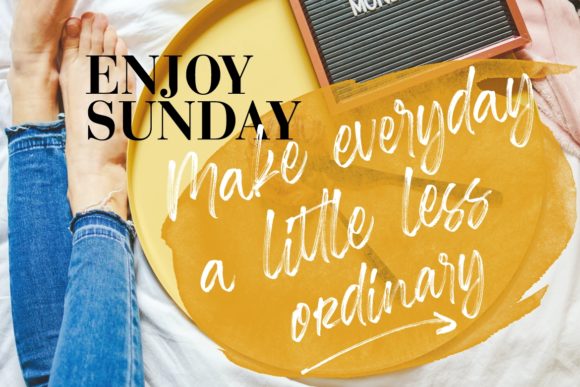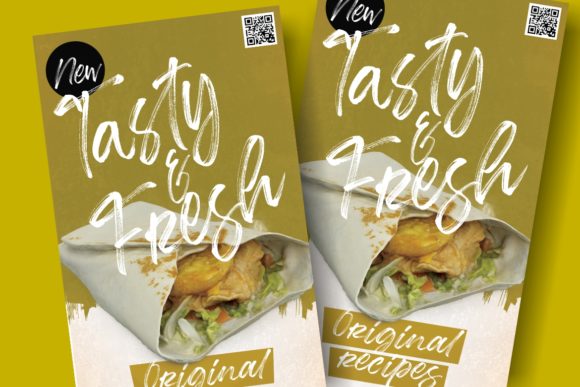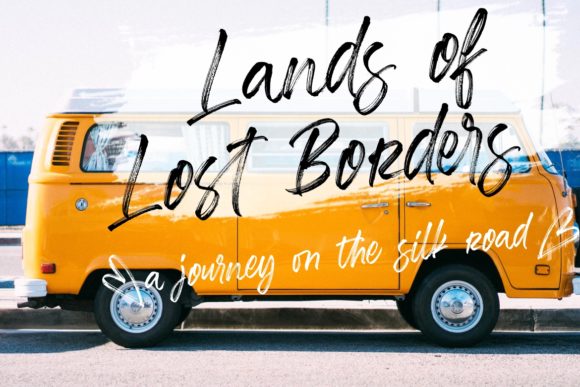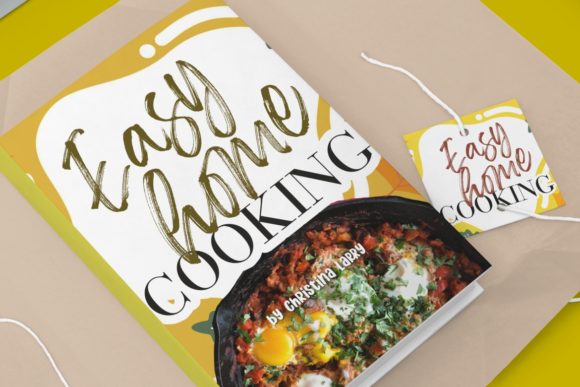
About Misrelly Font
Misrelly is a relaxed and cursive brushed handwritten font, masterfully designed to become a true favorite. It maintains its classy calligraphic influences while feeling contemporary and fresh. This font is PUA encoded which means you can access all of the glyphs and swashes with ease!